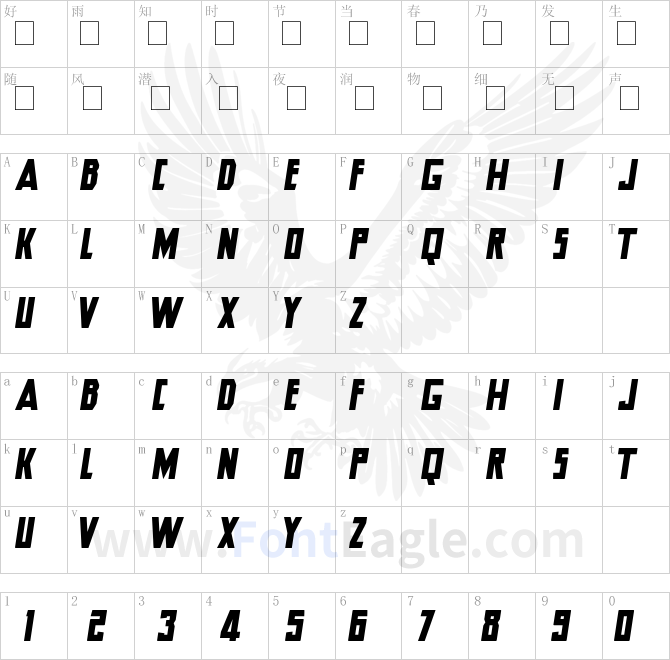
- Font name:Hero Italic
Hero-Italic is a great font, widely used in graphic design, single-page menu design, poster design and other fields, and is deeply loved by designers.Hero-Italic download.